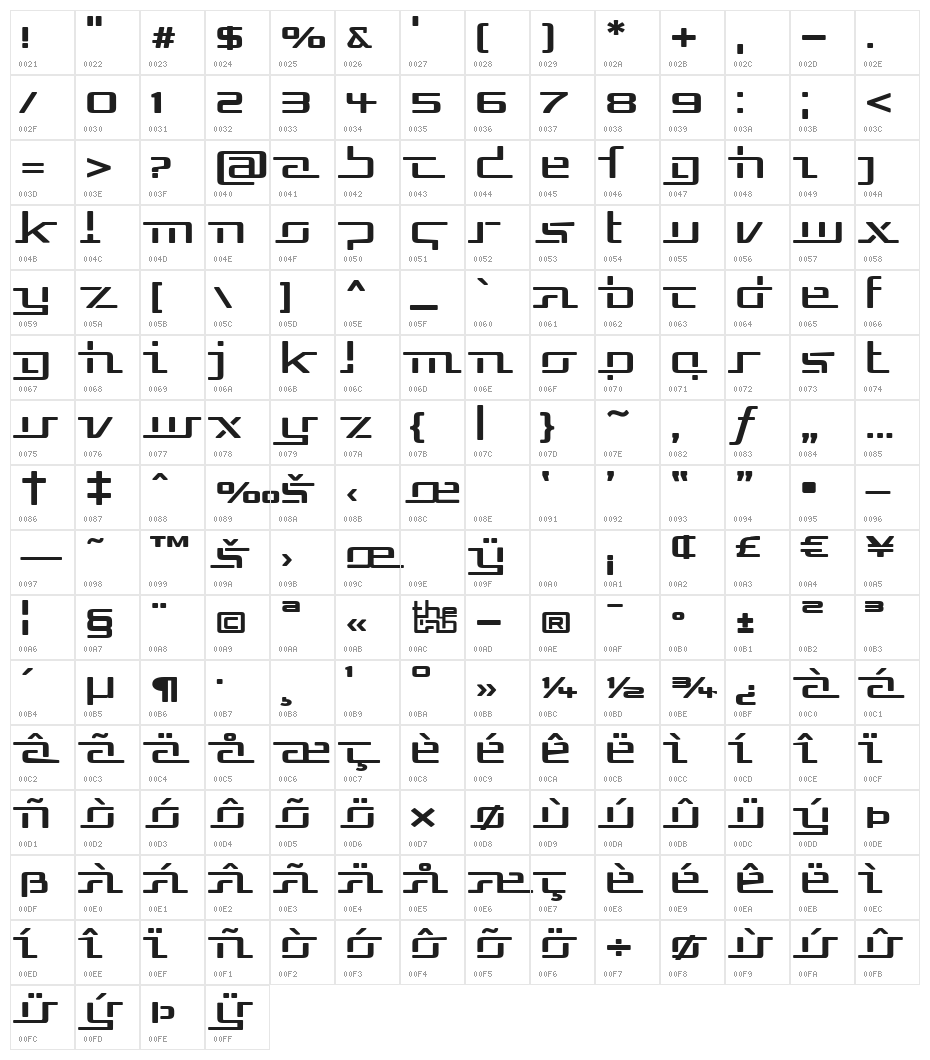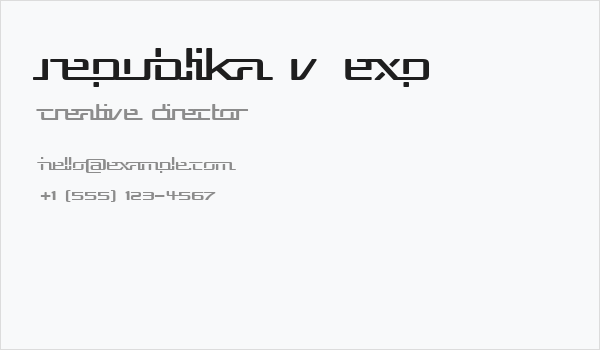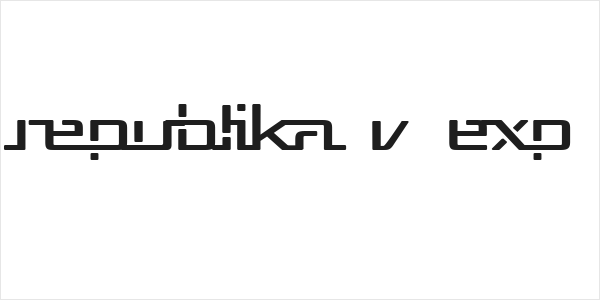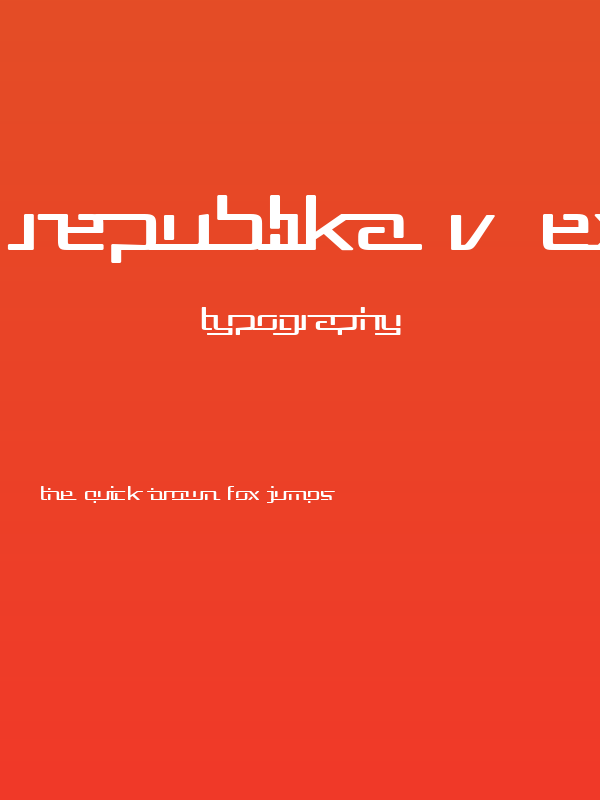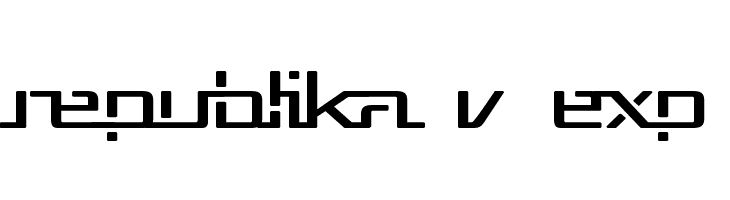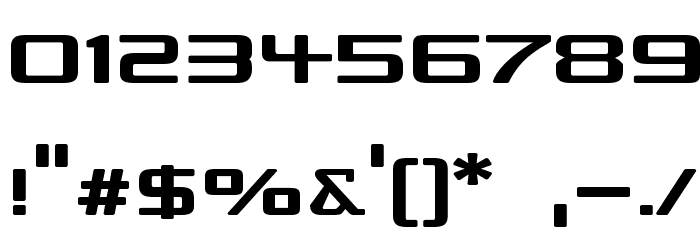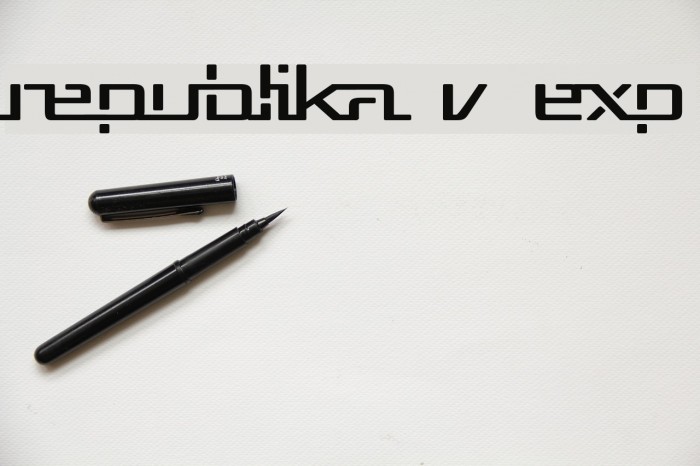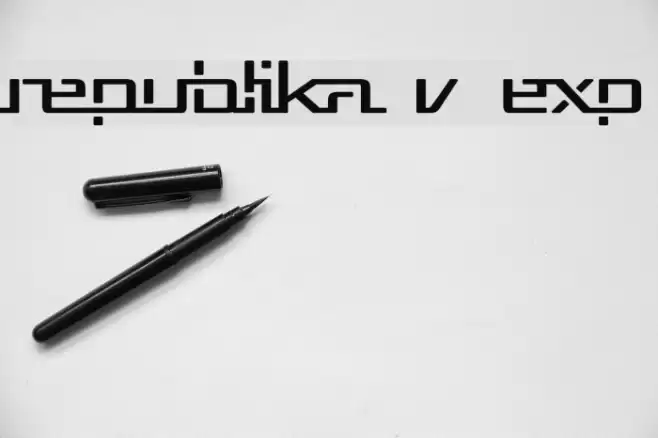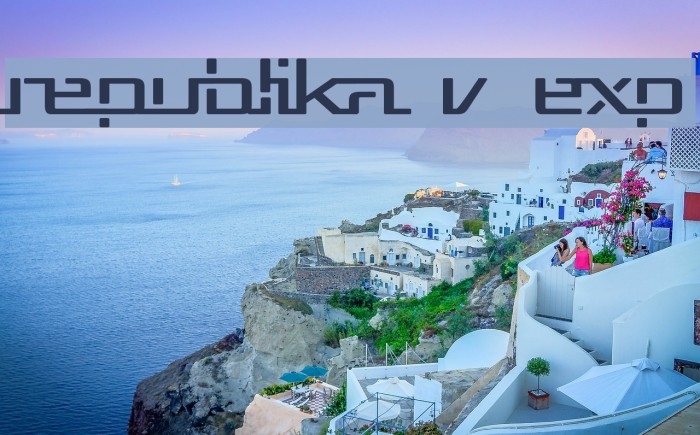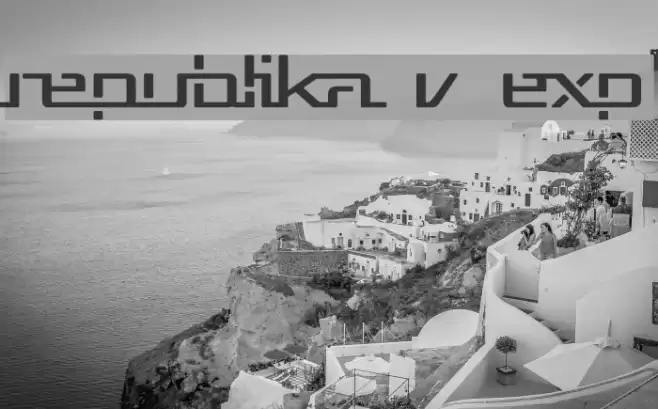
Republika V Exp Font
Republika V Exp Description
This font features a futuristic and geometric design, characterized by its angular and linear forms. The characters are constructed with a consistent stroke width, giving it a uniform appearance. The design incorporates sharp edges and straight lines, creating a modern and technical aesthetic. The uppercase and lowercase letters maintain a similar height, contributing to a cohesive look. The numerals and special characters follow the same design principles, ensuring visual harmony across all elements. This font is ideal for projects that require a contemporary and innovative feel.
| Use Case | Logos, Headlines, Posters |
| Proposed Projects | Ideal for technology branding, sci-fi themed designs, video game interfaces, and modern advertising. |